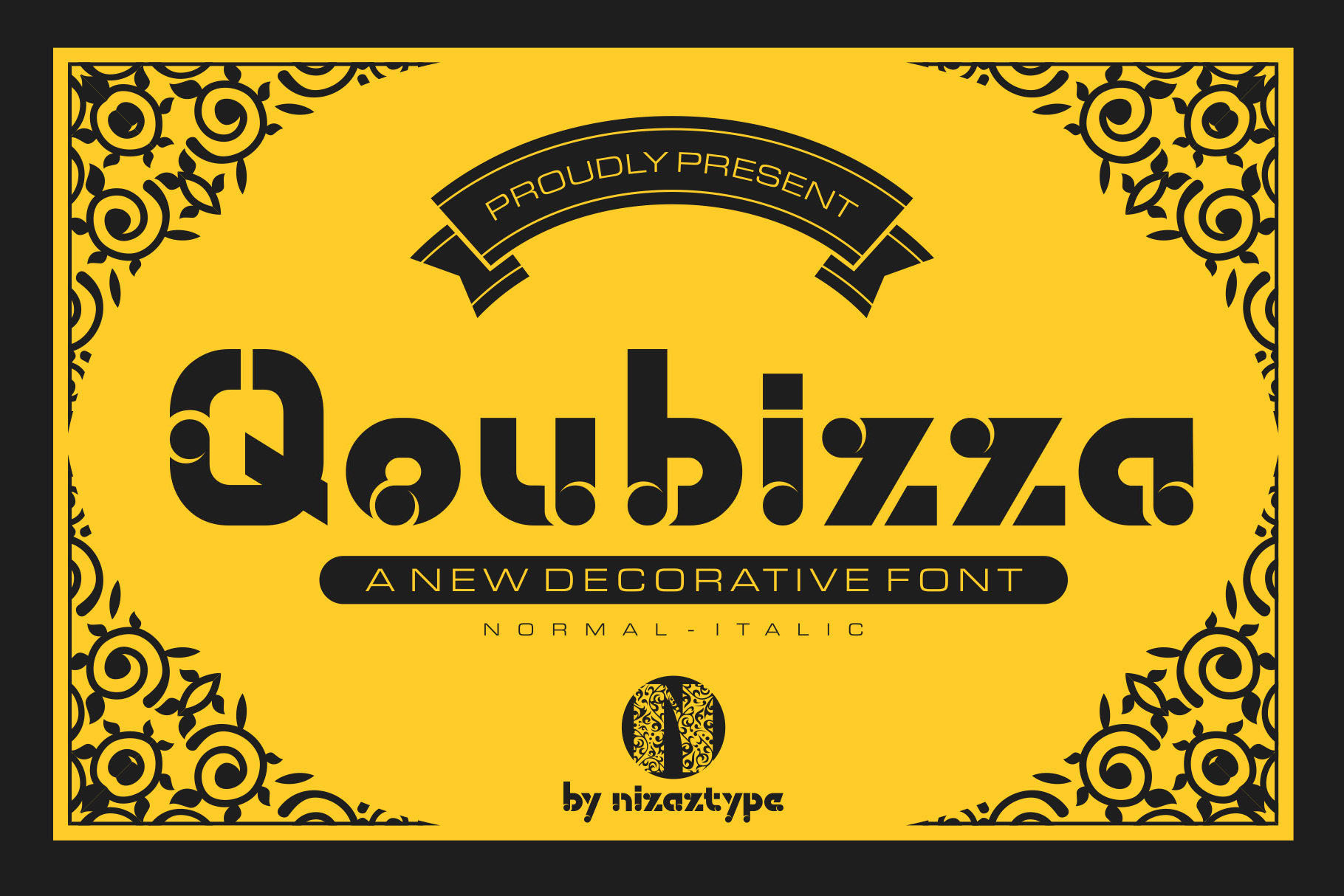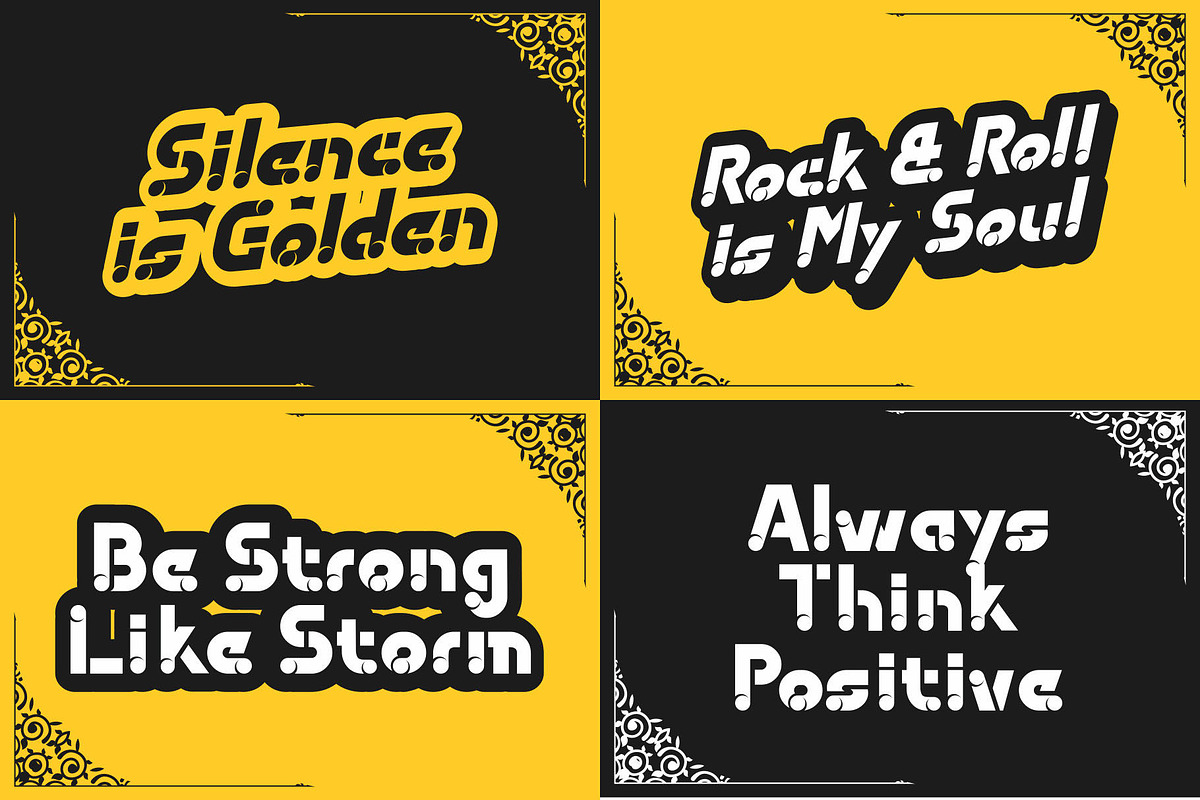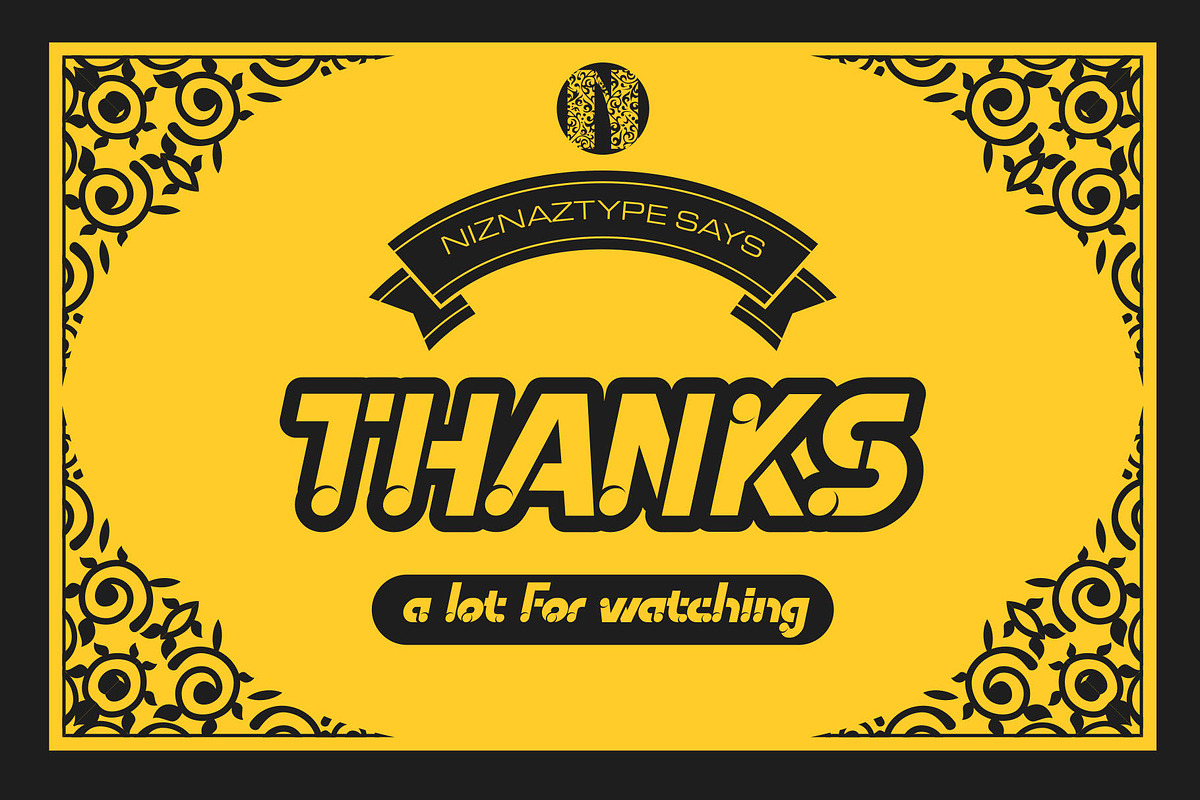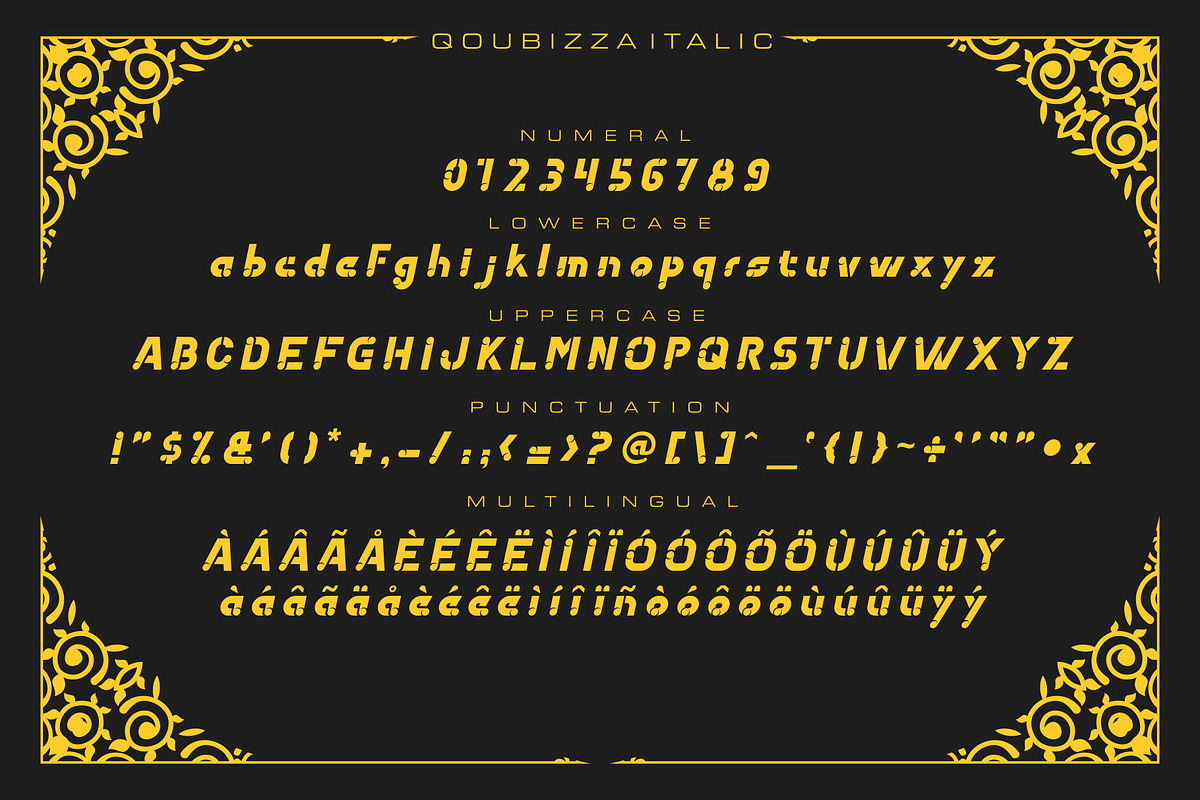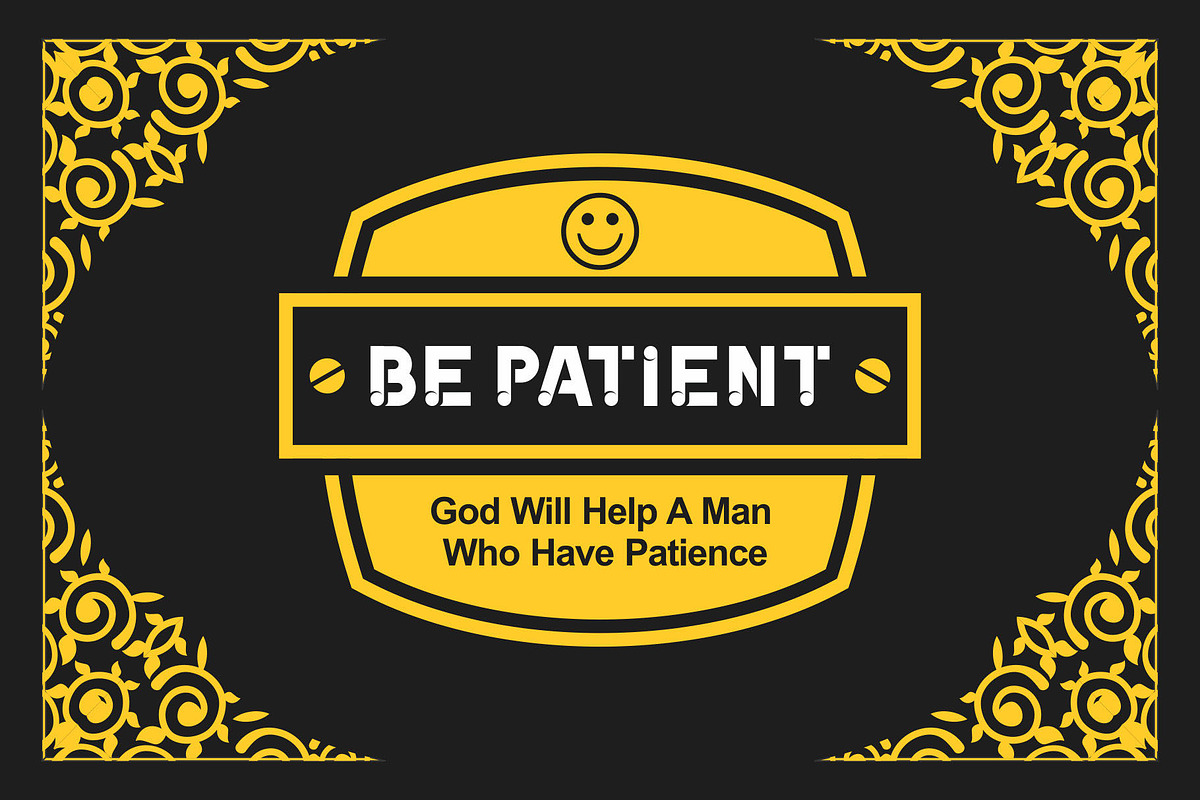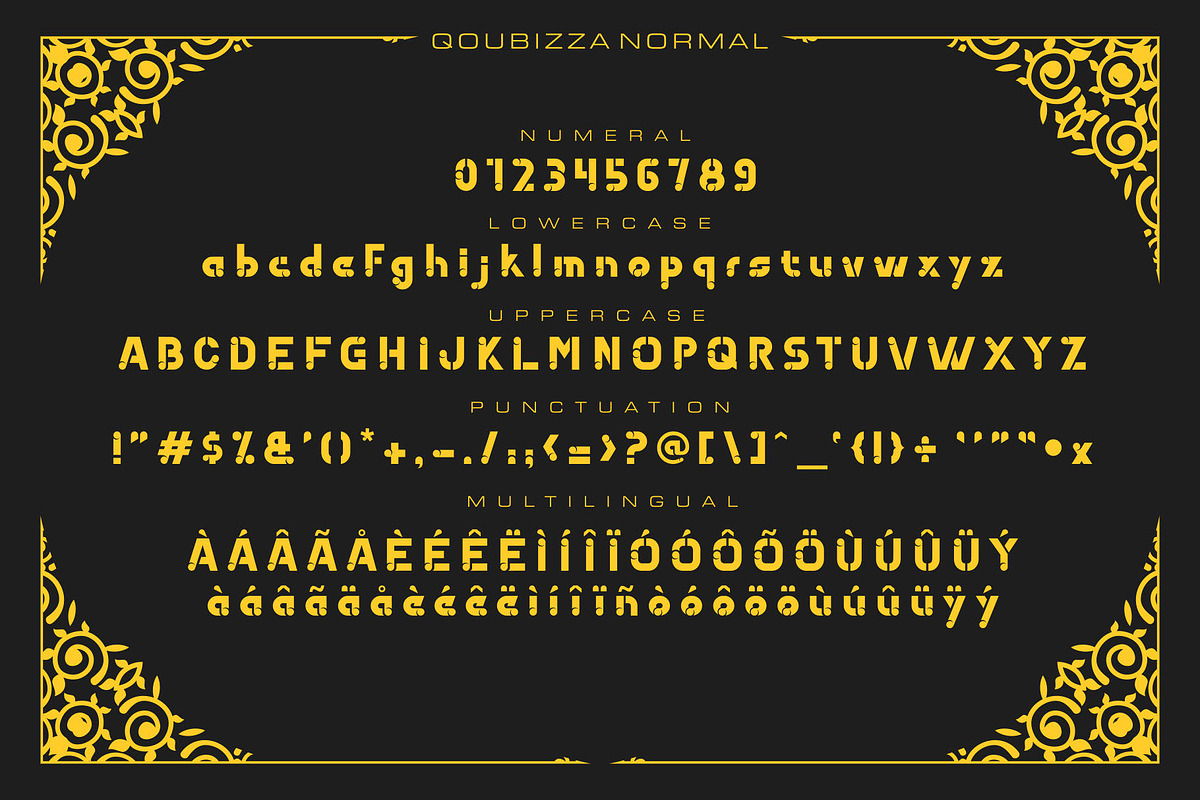
Qoubizza - Decoratiove Font
Qoubizza is a new decorative typeface. Very unique, simple and elegance. Qoubizza font created to used for design like poster, tshirt, headline, magazine title, social media flyer and others. Qoubizza contain : uppercase, lowercase, numeral, punctuation and multilingual language. There are two styles, Qoubizza normal and Qoubizza italic. Also saved in 3 formats TTF OTF and WOFF. If you have any question please send email to emnazar2009@gmail.com Qoubizza